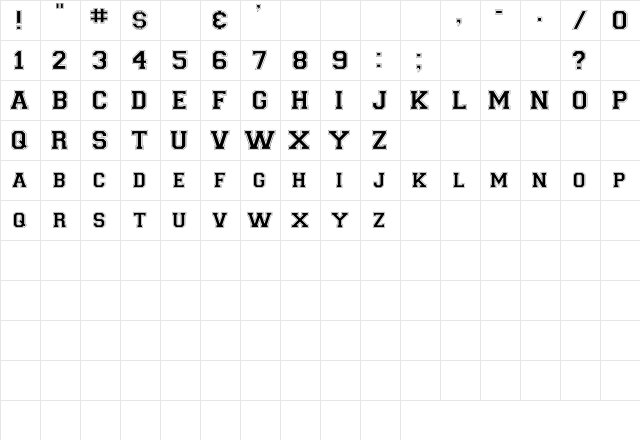
Collegiate-Norm Regular Free Font
Collegiate-Norm Regular
Complete Collegiate-Norm Regular glyph index. Displaying only characters natively supported by Collegiate-Norm Regular font.
Design Context for Collegiate-Norm
Collegiate-Norm is a composed and adaptable typeface that performs quietly and consistently across a wide range of design contexts.
Pro Tip: Use Collegiate-Norm in both headline and body roles to test its range before committing to a single application.